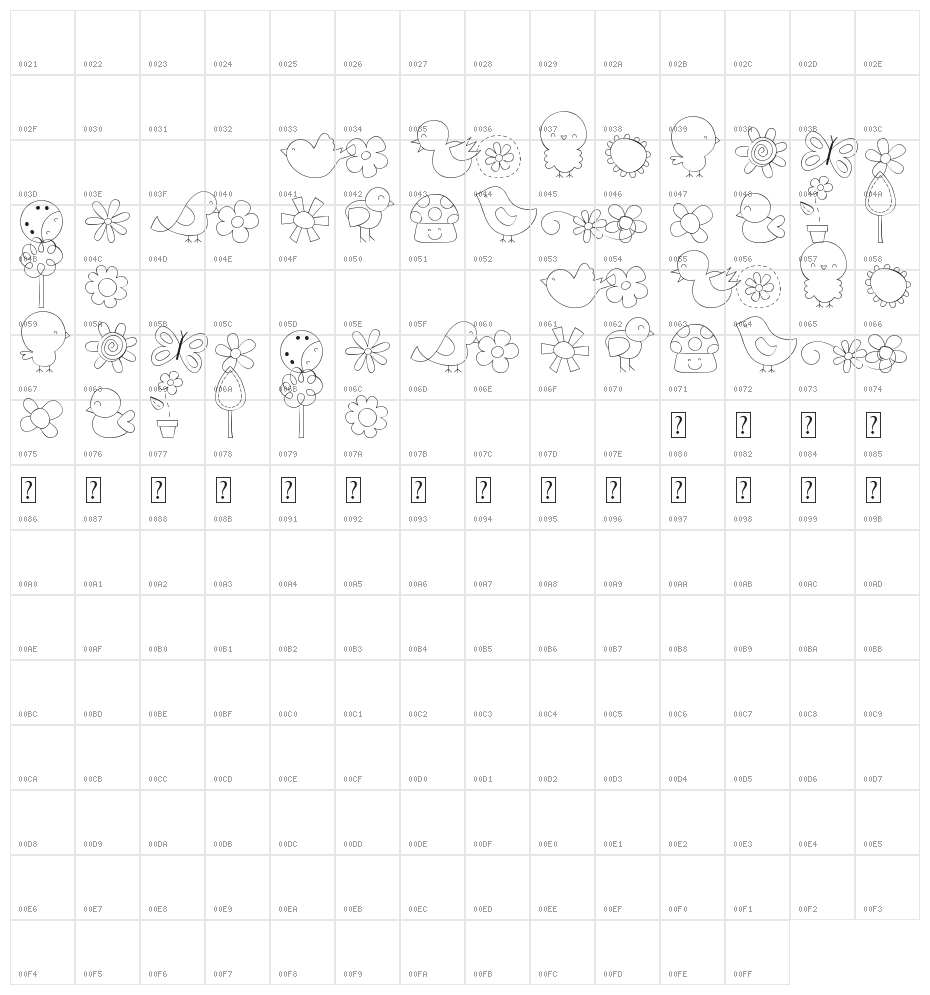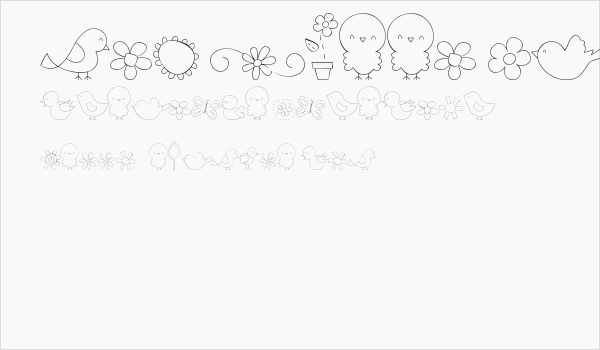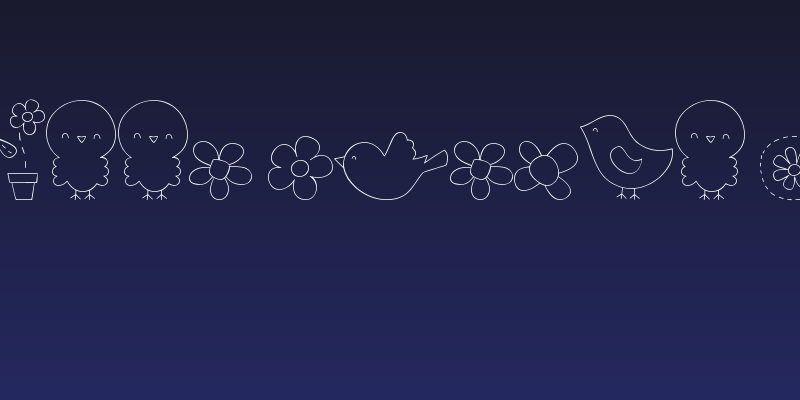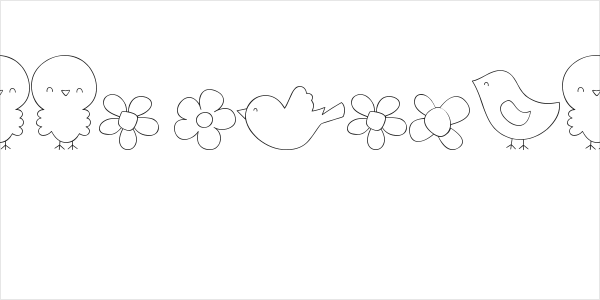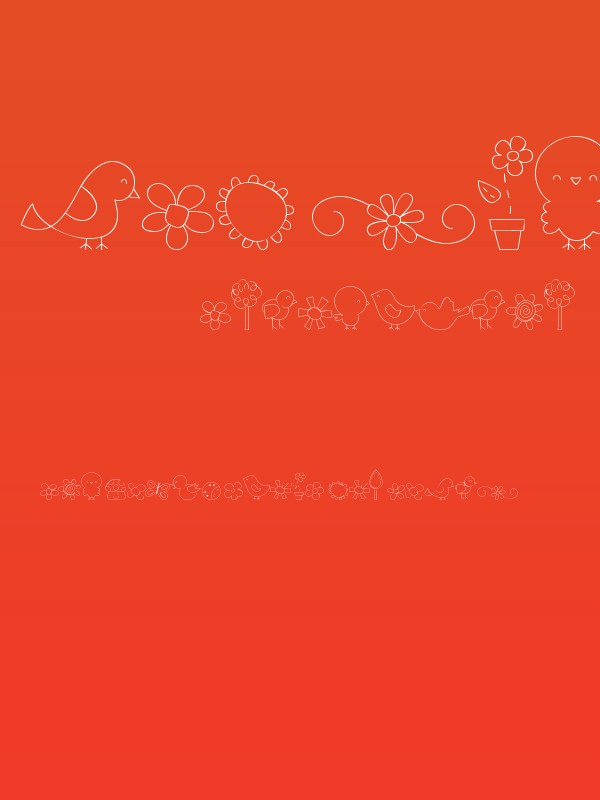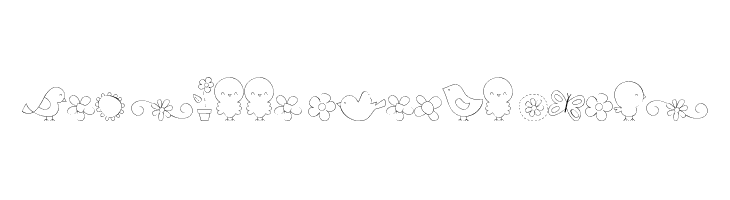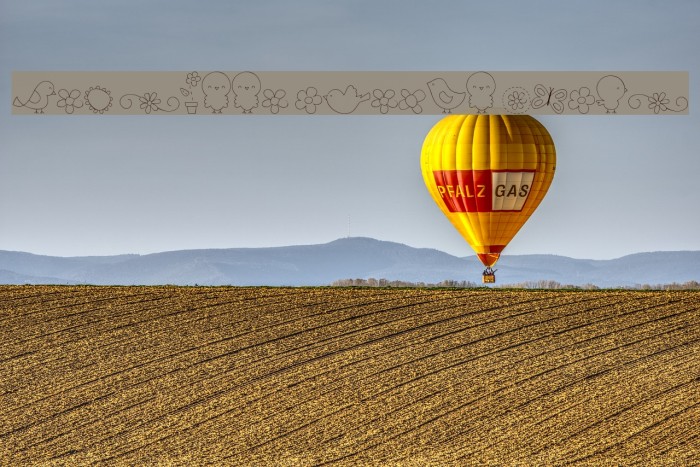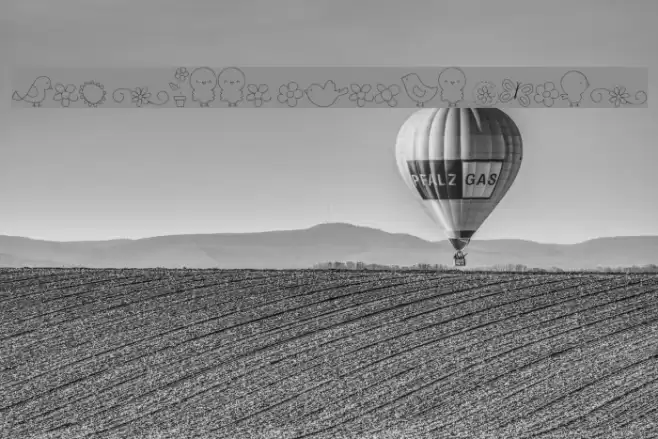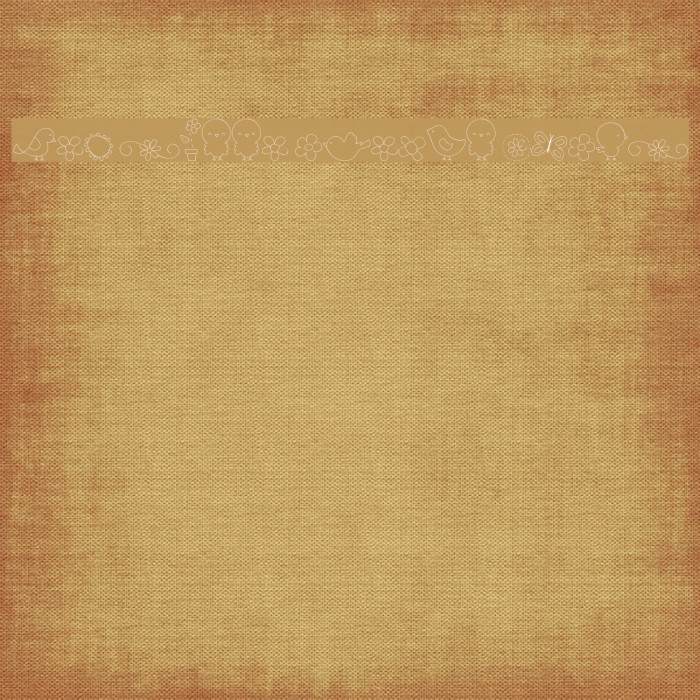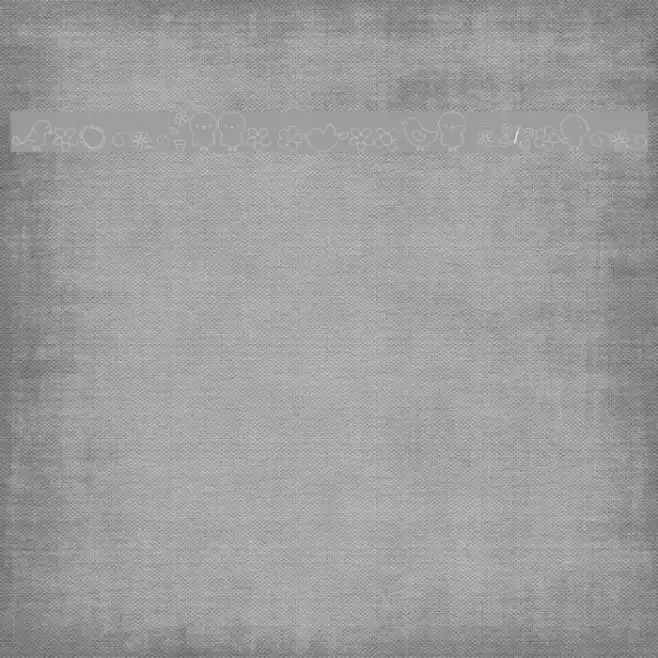
MTF Sweet Nature Dings Font
MTF Sweet Nature Dings Description
This is a decorative dingbat font featuring a variety of charming nature-themed illustrations. The designs include birds, flowers, butterflies, and trees, each rendered in a simple, whimsical style. The line art is clean and minimalistic, making it suitable for coloring or adding a playful touch to projects. The characters are evenly spaced, creating a harmonious and balanced appearance. This font is perfect for adding a touch of nature-inspired whimsy to creative projects.
| Use Case | Logos, Decorative elements |
| Proposed Projects | Ideal for children's books, greeting cards, scrapbooking, and decorative borders. |